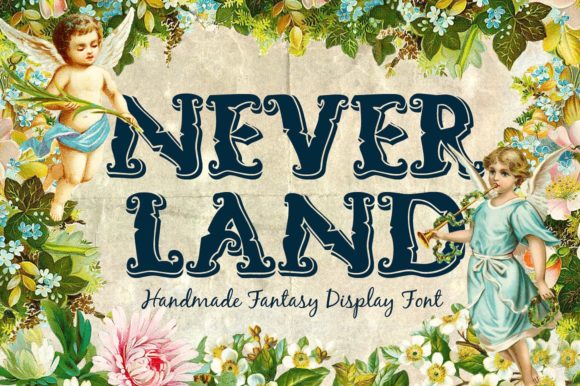
Journey to the enchanting realm of Neverland Font, where dreams take form and fantasies come alive. This captivating display font, crafted by the skilled hands of tsvgraphic, is a visual masterpiece that will cast a spell on your designs, leaving viewers spellbound.
Neverland's intricate characters, adorned with delicate flourishes and whimsical accents, evoke the magical aura of a fairy tale world. Inspired by the enchanting stories that have captivated generations, this font captures the essence of wonder, adventure, and imagination.
As you explore the depths of the Neverland Font family, you'll discover a vast array of possibilities. Each letter is meticulously designed, showcasing a symphony of curves, swirls, and serifs that dance across the page. The font's graceful strokes evoke a sense of elegance and sophistication, making it an ideal choice for projects that demand a touch of whimsy and charm.
Embrace the allure of Neverland and unlock a world of creative potential. This font is a blank canvas for your imagination, inviting you to create designs that transcend the ordinary and transport viewers to a realm of enchantment. Let Neverland be your muse, guiding you to weave tales of magic, love, and adventure through the art of typography.
With Neverland as your font of choice, you'll captivate audiences, ignite imaginations, and leave an enduring mark on the hearts and minds of those who encounter your creations. So, embark on this magical journey today and experience the transformative power of Neverland Font.